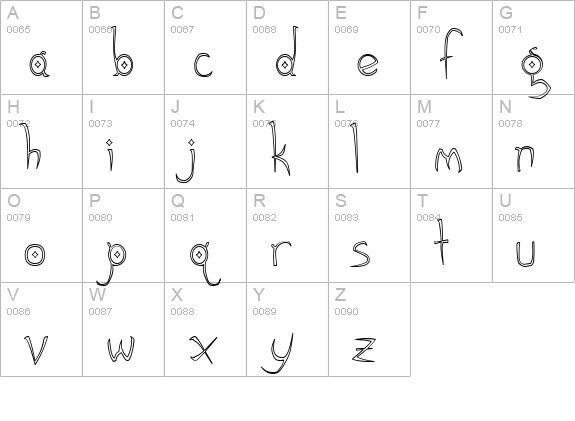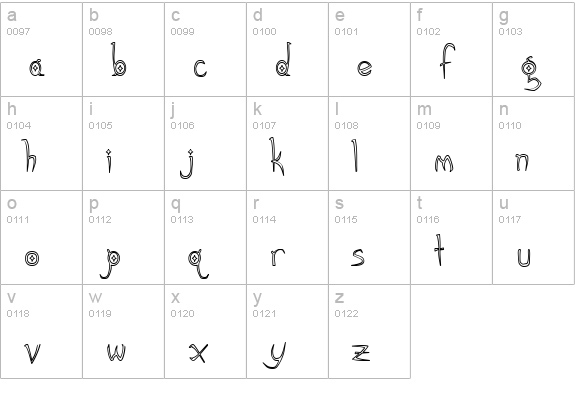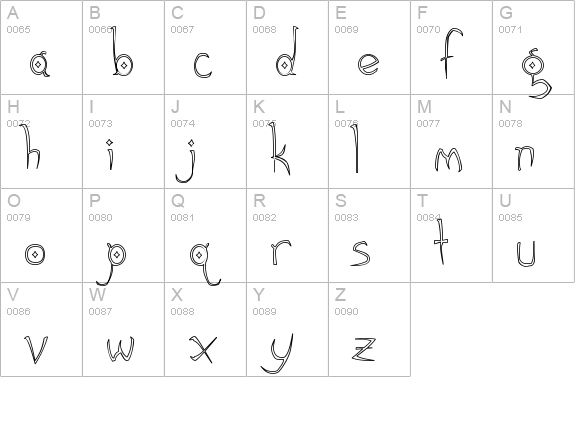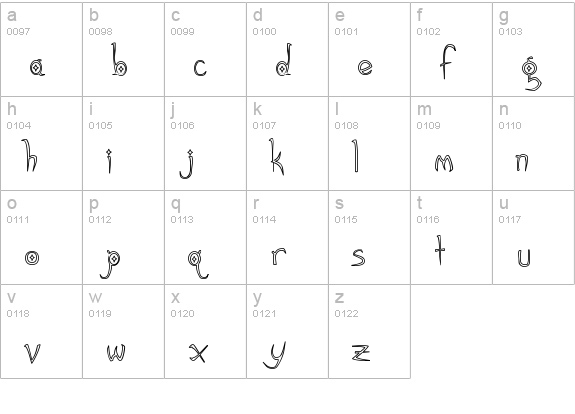
Gothic Hijinx Hollow font is a captivating and intricate typeface that exudes an air of mystery and elegance. Its intricate detailing and gothic-inspired design make it perfect for adding a touch of drama to your projects. The hollow style of the font gives it a unique and eye-catching look that is sure to make a statement. Best of all, Gothic Hijinx Hollow font is available for free download at FontsMarket.com. This means you can easily add this stunning typeface to your collection without any cost. Whether you're working on a creative project, designing signage, or crafting invitations, Gothic Hijinx Hollow font is sure to bring a touch of gothic flair to your designs. Download it today and let your creativity run wild with this striking font.